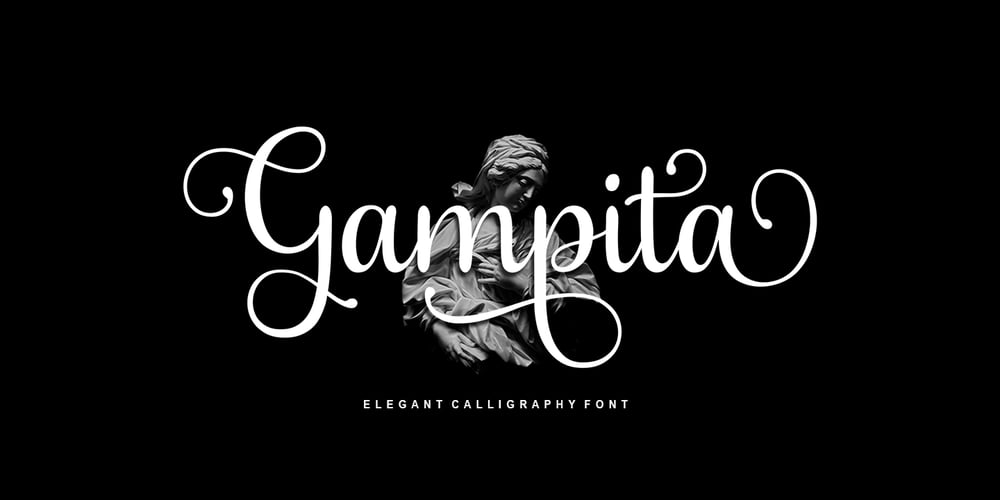
Gampita
Gampita font
Gampita Font Family was designed by Vina Amelia and published by Amelia Studio. Gampita contains 3 styles and family package options. Gampita is a script type family of four fonts. It is inspired by Elegant Fonts and has a soft and friendly look. Gampita can be used for branding, packaging and anywhere else you need a script font that is readable and smooth. Gampita has many ties, strokes and alternate characters that will make your designs unique and beautiful.You can also purchase Gampita as a Family Font and adjust the weight of Gampita smoothly between Italic and Bold weights. Note that you need design software that supports Family Fonts.